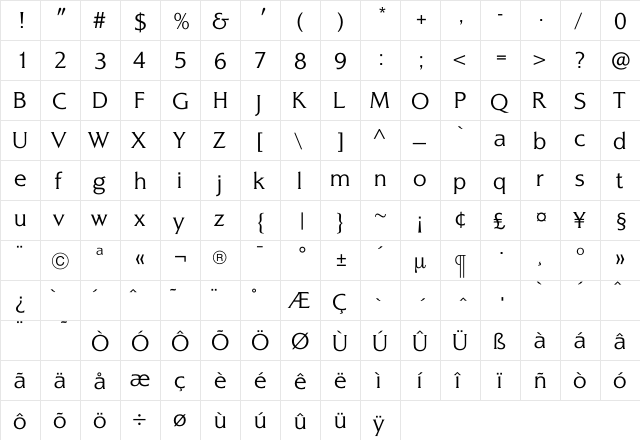
AlexonLight Regular
Design Context for AlexonLight Typeface
AlexonLight takes a measured approach to typography — its balanced proportions and neutral character make it a reliable workhorse for both digital and print work. Its slender proportions lend an understated elegance to any composition.
Pro Tip: Pair AlexonLight with a font of contrasting weight or personality to build a more expressive typographic hierarchy.